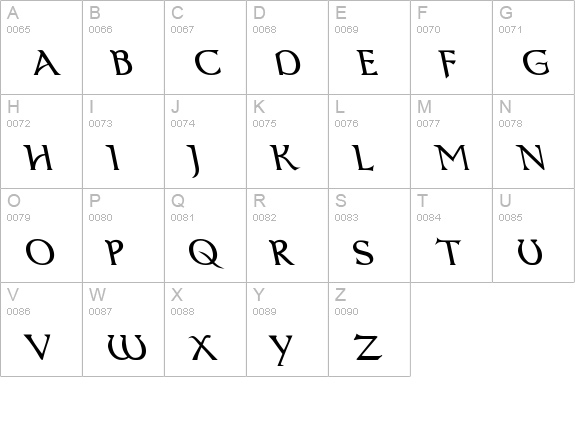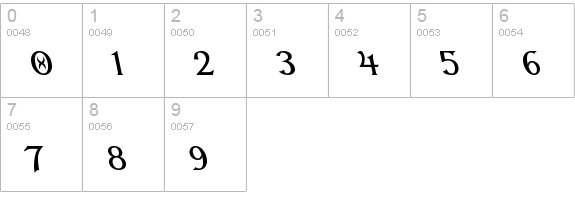
Dumbledor 1 Rev Italic Font Details
Dumbledor 1 Rev Italic is a distinctive, italic variant in the Dumbledor typeface family \xE2\x80\x94 well suited to design and typography projects.